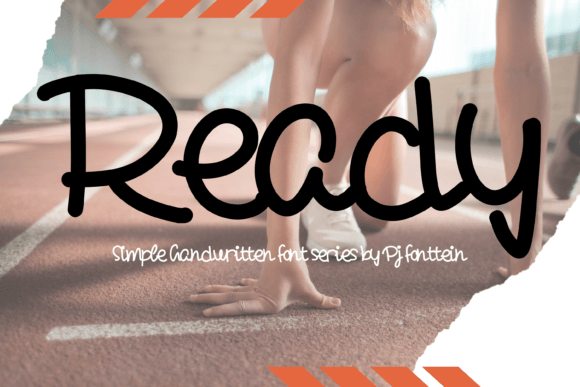
With Ready Font, prepare to be captivated by the breathtaking beauty of meticulously crafted cursive letters, designed to bring a touch of elegance and charm to your creative projects. Created by the talented PJ Fonttein, this script font exudes a sweet and gentle aura that will transform your designs into masterpieces.
Step into a world of endless possibilities, where Ready Font becomes your trusty companion in crafting logos that radiate sophistication, wedding invitations that evoke romance, greeting cards that convey heartfelt messages, and fashion campaigns that exude undeniable allure. Unleash your creativity and watch as your projects blossom into visually stunning masterpieces that capture hearts and leave a lasting impression.
More than just a font, Ready Font is an expression of your unique style and personality. Its graceful curves and flowing lines add a touch of playful elegance to branding materials, injecting life into your marketing promotions, and turning lookbooks into captivating visual journeys. Let Ready Font be the guiding light that elevates your creative endeavors to new heights, leaving an indelible mark on all who encounter your designs.